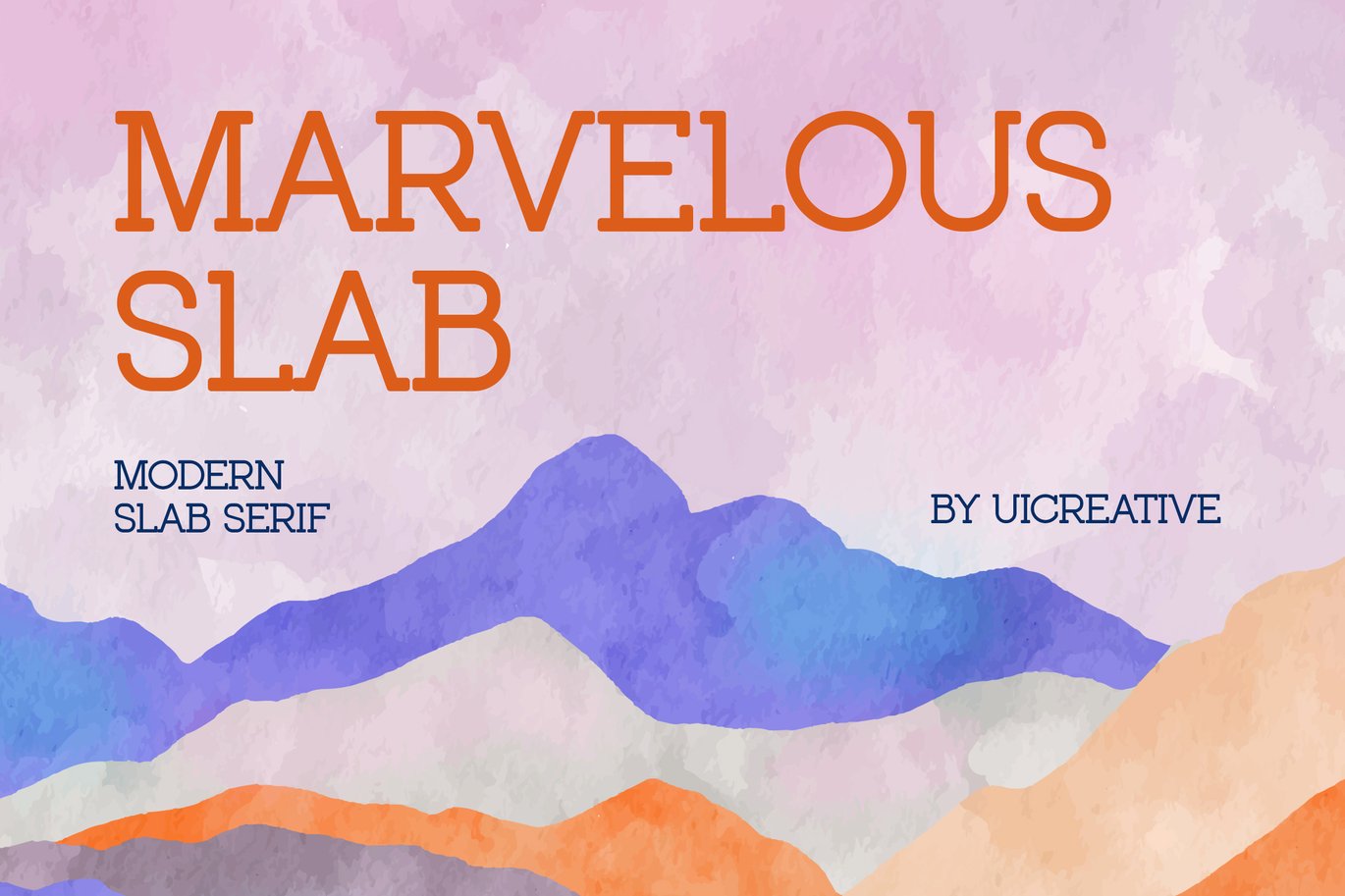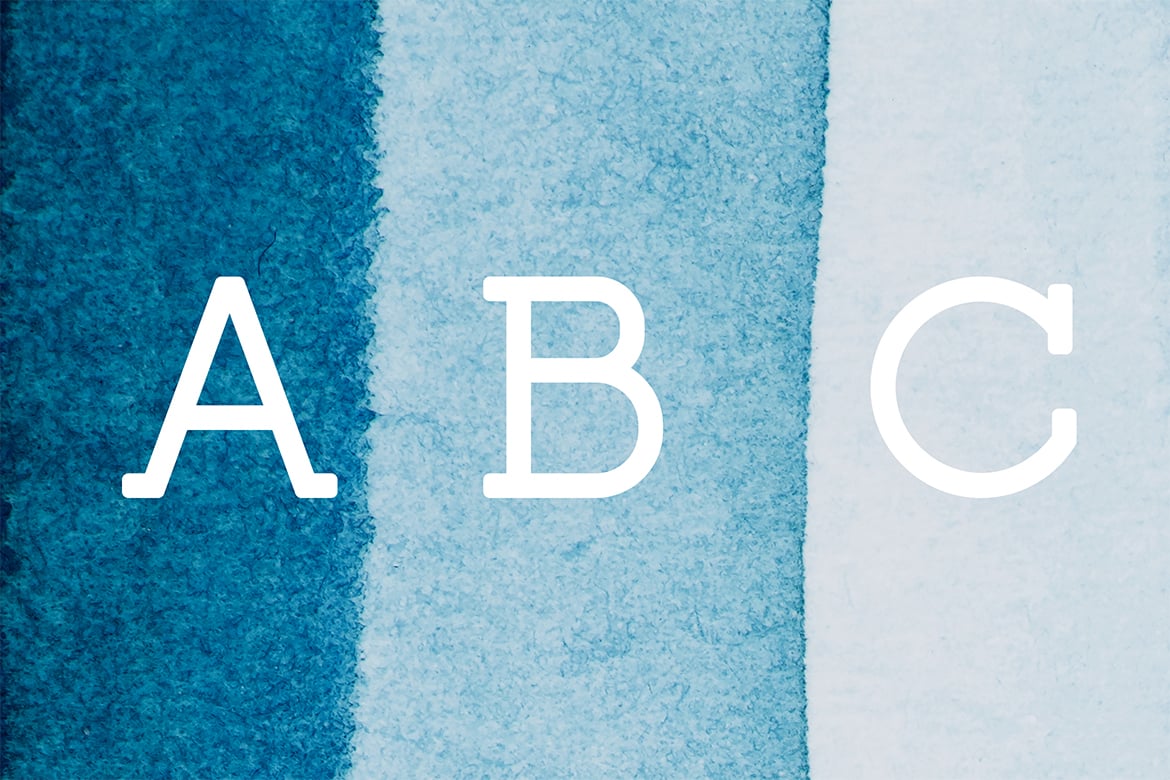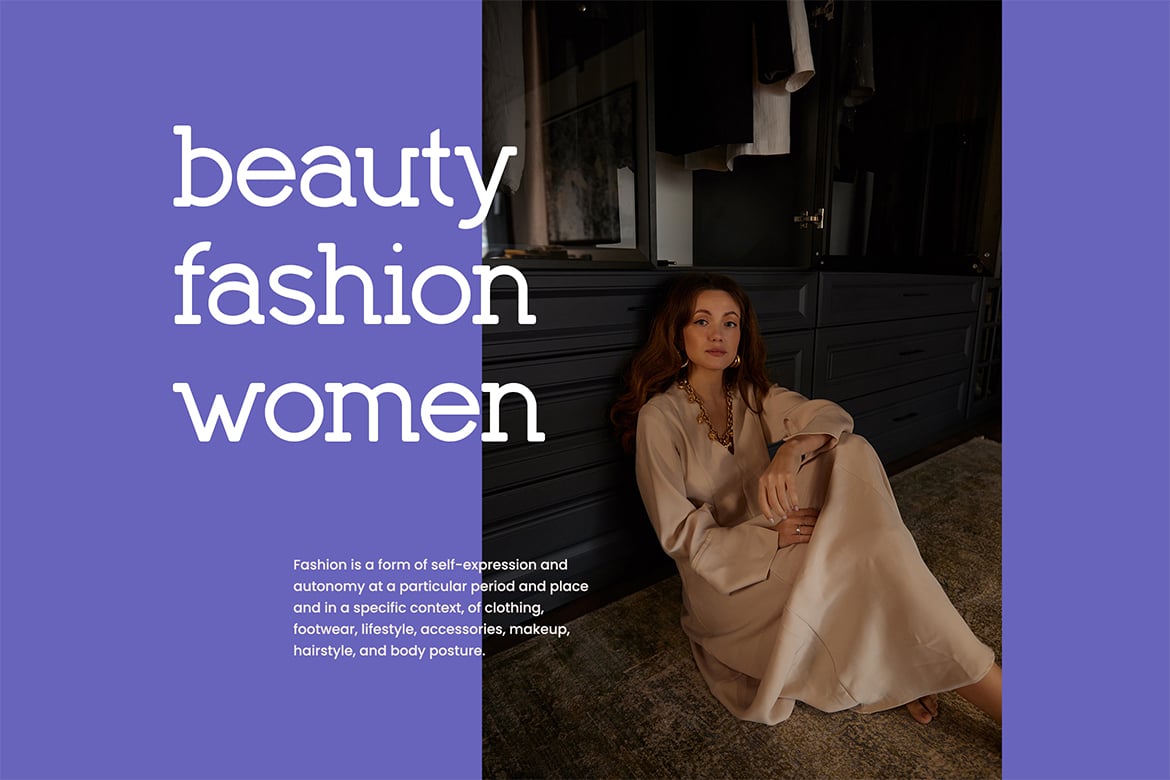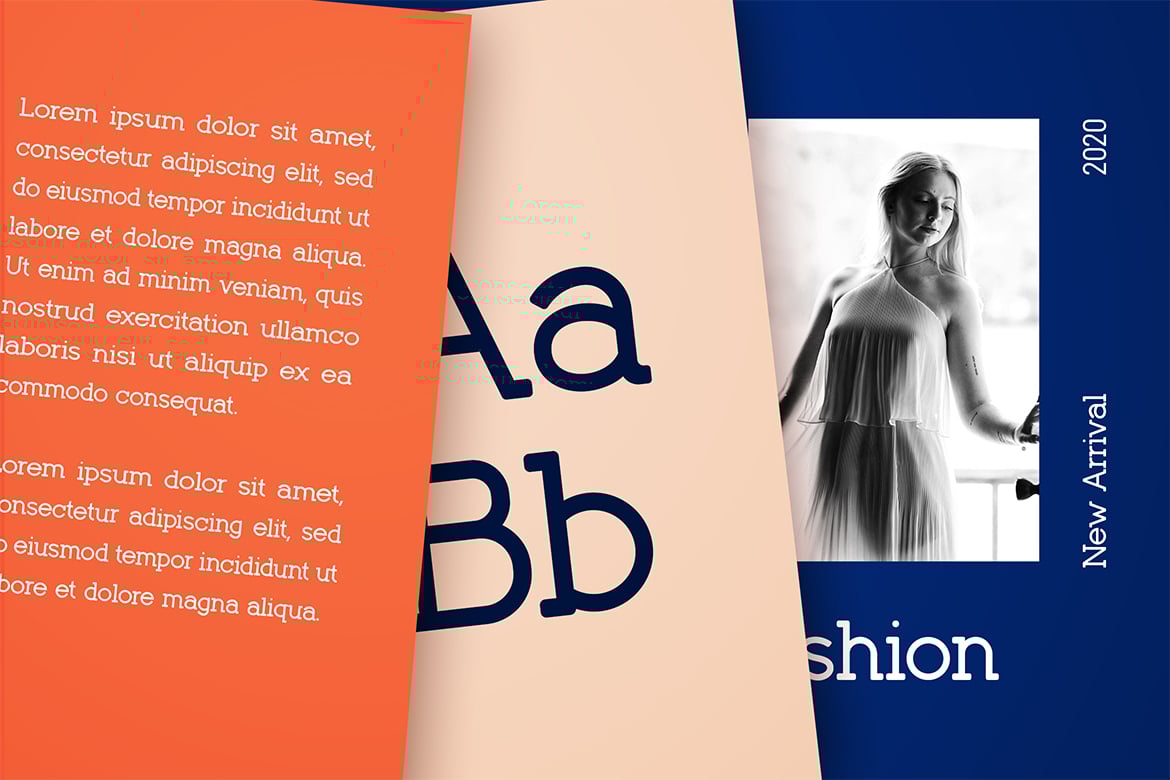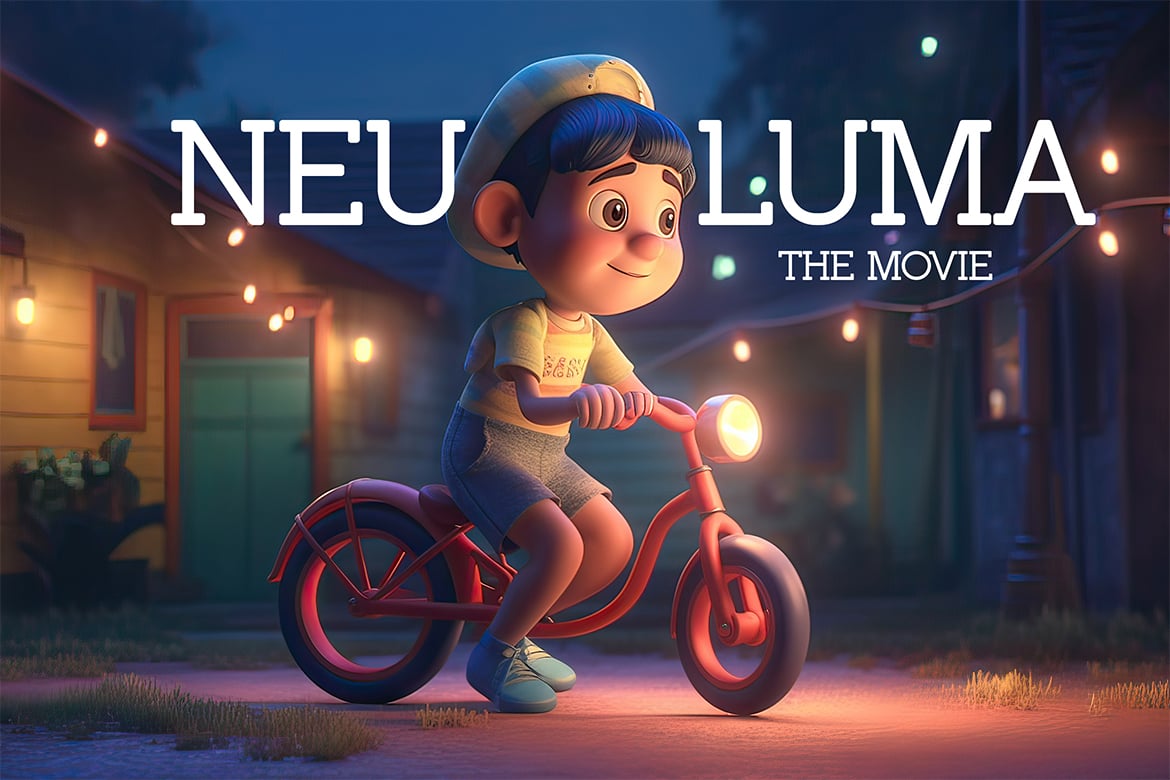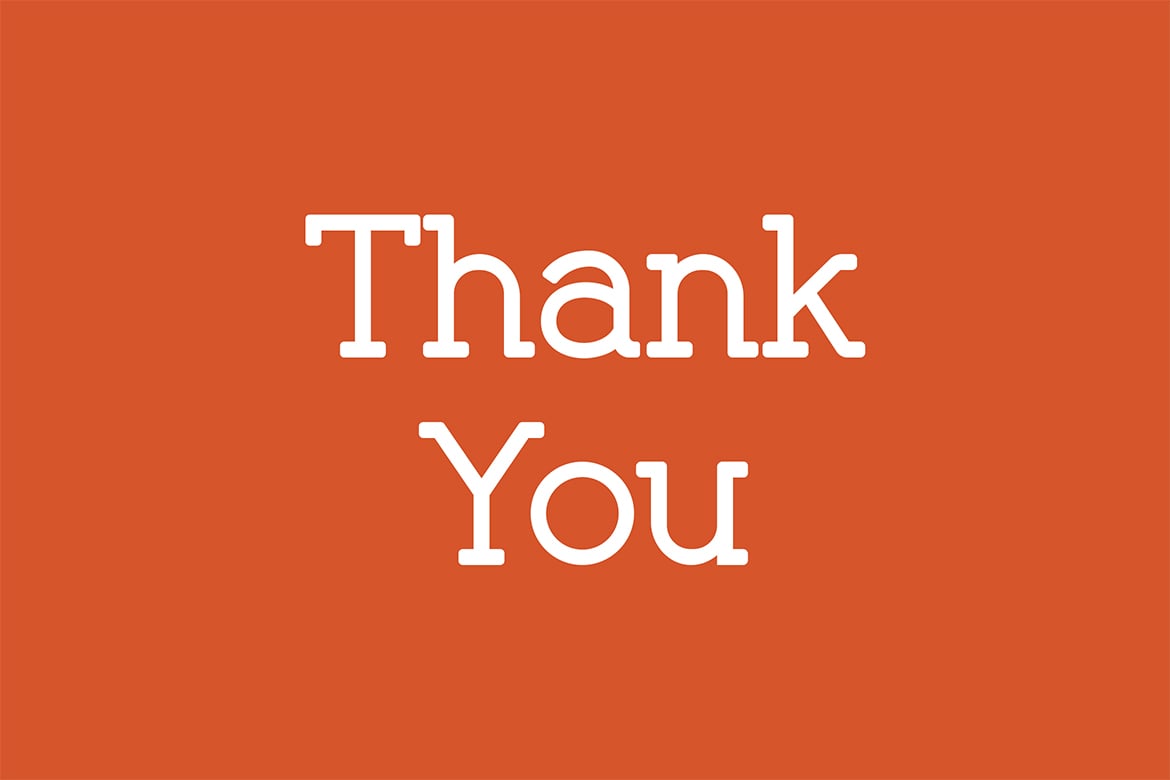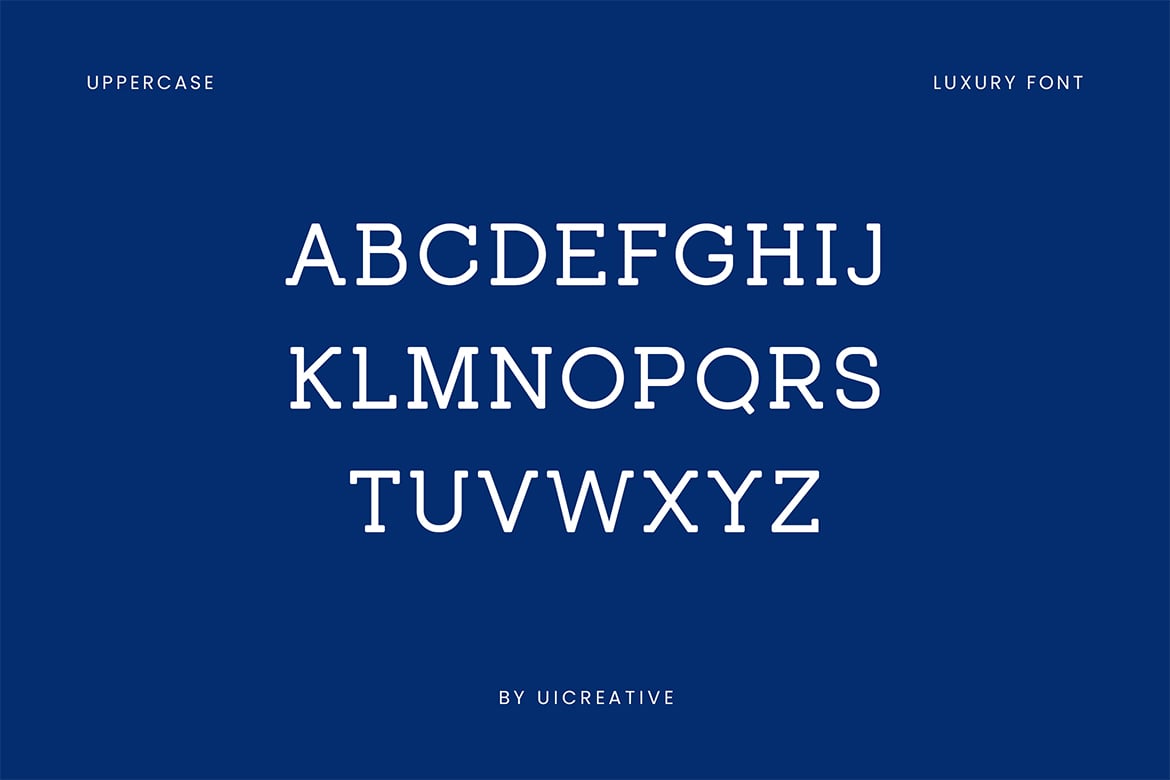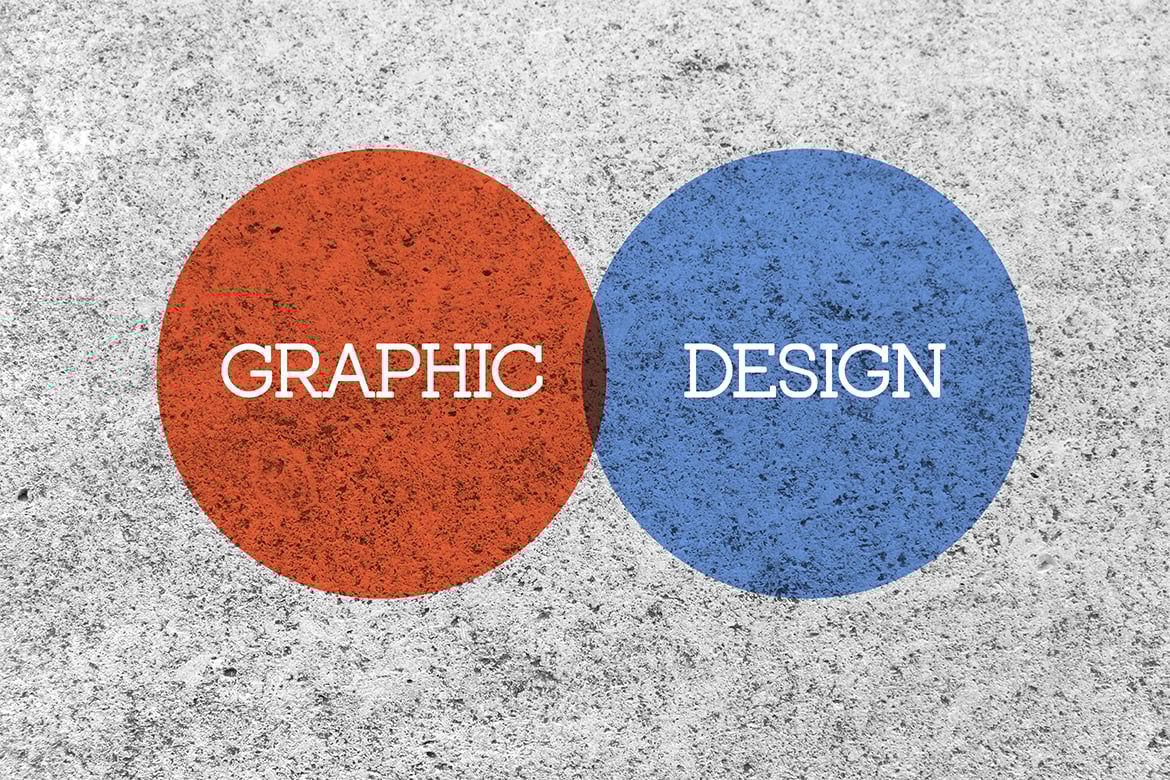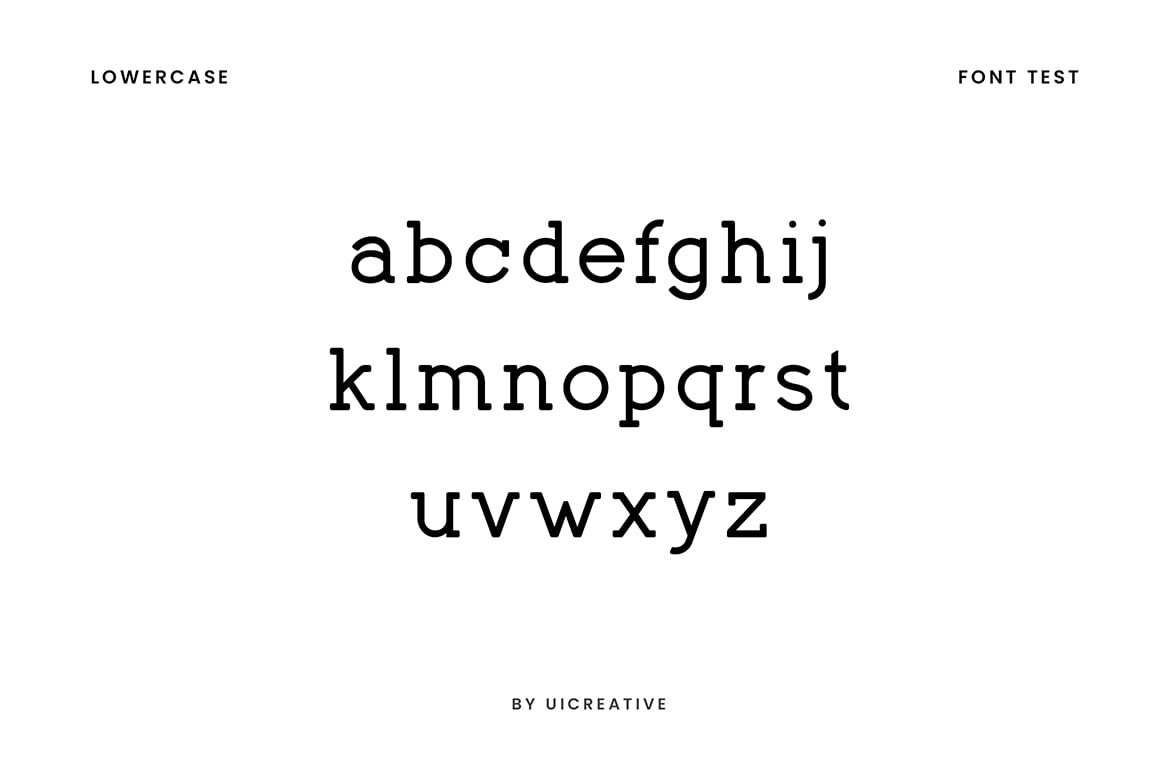
Marvelous Slab Modern Serif Font
Introducing our new product the name is Marvelous Slab Modern Serif Font. Marvelous Slab Modern Serif Font that feels beautiful classy, elegant, and modern. This font is perfectly suited for a wide variety of projects, such as signature, stationery, logo, wedding, typography quotes, magazine or book covers, website headers, branding, packaging design, and more. Also, fashion-related branding or editorial design displays both masculine and feminine qualities.
- !”#$&'()*+,-./:;=?@[]_{|} ¡¢«»¿